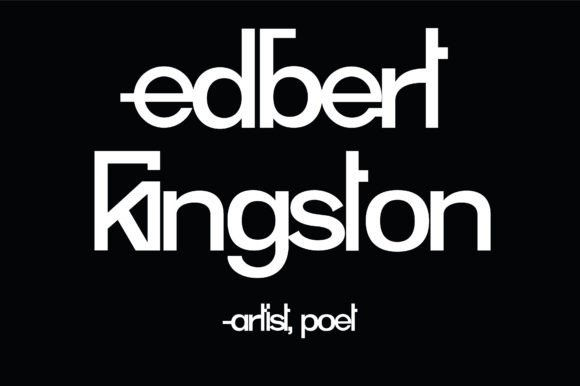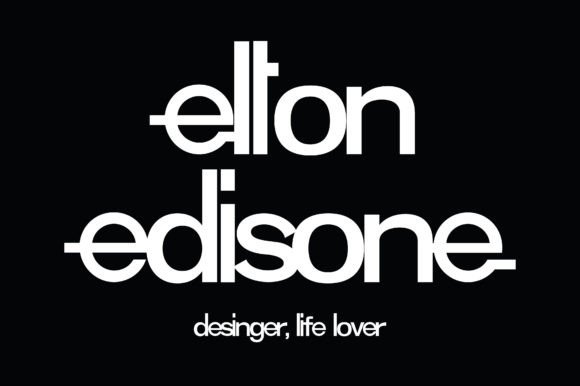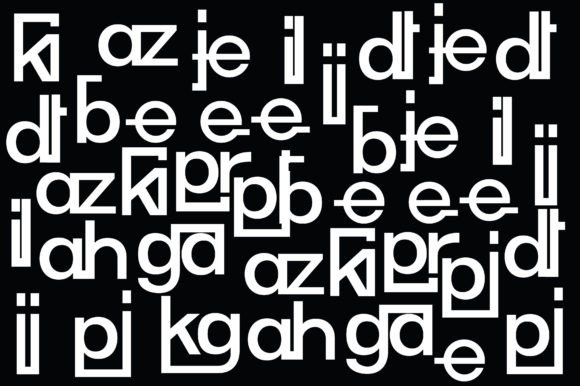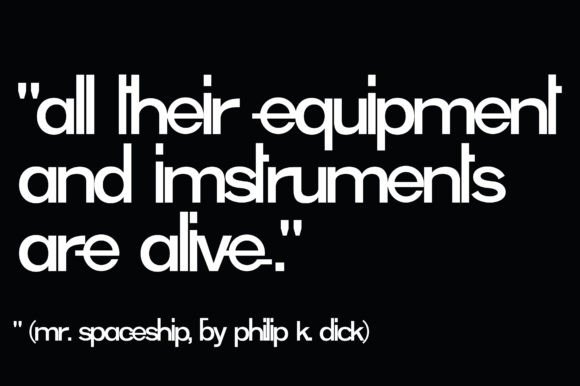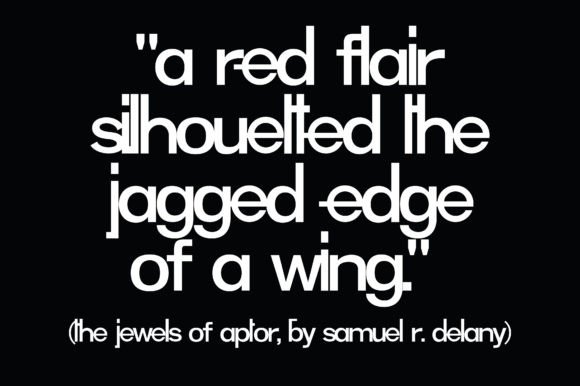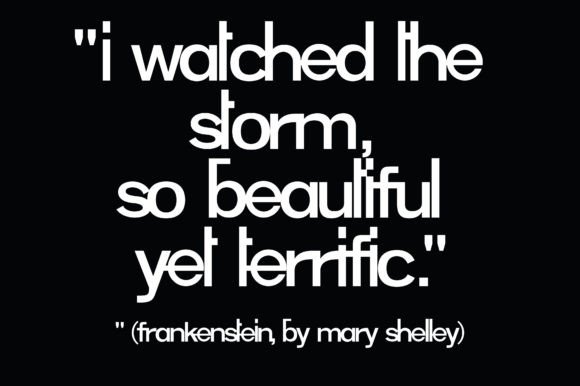
Introducing Edtile Font: The Ultimate Minimalist Sans Serif Typeface
In the world of typography, a good font can make all the difference in the success of a design project. For designers and crafters looking for a clean, minimalist, and versatile typeface, Edtile Font is an excellent choice. This compressed sans serif font is perfect for a variety of applications, from logo design and packaging to large-scale banners and more.
What is Edtile Font?
Edtile Font is a modern, sans serif typeface that boasts a clean and minimalist aesthetic. Its compressed design makes it ideal for use in a range of contexts, from digital media to print materials. The font’s simplicity and elegance render it a valid choice for designers seeking to add a touch of sophistication to their work.
Key Features of Edtile Font
- Clean and Minimalist Design: Edtile Font features a sleek, uncluttered design that exudes a sense of modernity and elegance.
- Compressed Sans Serif: The font’s compressed sans serif design makes it perfect for use in tight spaces, such as logos, headlines, and titles.
- Versatile: Edtile Font is highly versatile and can be used in a wide range of applications, from digital media to print materials.
- Attention-Grabbing: Despite its minimalist design, Edtile Font is sure to grab attention and make a lasting impression.
Use Cases for Edtile Font
Edtile Font is an excellent choice for a variety of design projects, including:
- Logo Design: The font’s clean and minimalist design makes it perfect for use in logos, where simplicity and elegance are essential.
- Packaging Design: Edtile Font is ideal for use in packaging design, where it can add a touch of sophistication and modernity to product labels and packaging materials.
- Large-Scale Banners: The font’s bold and attention-grabbing design makes it perfect for use in large-scale banners, where it can be seen from a distance.
- Digital Media: Edtile Font is also suitable for use in digital media, such as website headers, social media graphics, and more.
Why Choose Edtile Font?
So, why should designers and crafters choose Edtile Font for their projects? Here are just a few reasons:
- Unique and Modern Design: Edtile Font features a unique and modern design that sets it apart from other typefaces.
- Highly Versatile: The font’s versatility makes it suitable for use in a wide range of applications and design projects.
- Easy to Read: Despite its compressed design, Edtile Font is easy to read, even at small sizes.
- Adds a Touch of Sophistication: The font’s clean and minimalist design adds a touch of sophistication and elegance to any design project.
In conclusion, Edtile Font is an excellent choice for designers and crafters looking for a clean, minimalist, and versatile typeface. Its compressed sans serif design makes it perfect for use in a wide range of applications, from logo design and packaging to large-scale banners and digital media. With its unique and modern design, high versatility, and ease of readability, Edtile Font is sure to become a favorite among designers and crafters. So why not add it to your font library today and see the difference it can make in your design projects?
Tips for Using Edtile Font
- Experiment with Different Sizes: Edtile Font is highly versatile and can be used at a range of sizes, from small headlines to large-scale banners.
- Pair with Other Fonts: The font pairs well with other sans serif typefaces, making it ideal for use in combination with other fonts.
- Use in Digital Media: Edtile Font is perfect for use in digital media, such as website headers, social media graphics, and more.